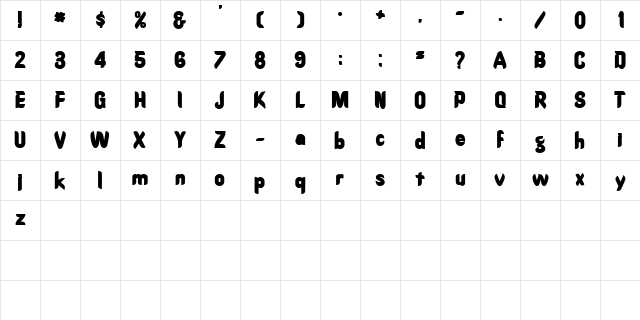
SmidgenSSK Bold
Design Context for SmidgenSSK
SmidgenSSK is a composed and adaptable typeface that performs quietly and consistently across a wide range of design contexts. Its bold stroke weight gives it real presence on the page.